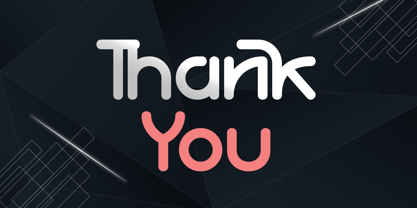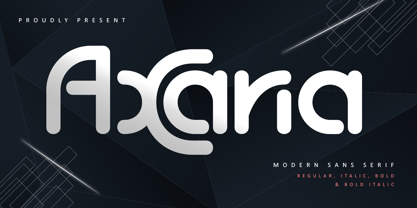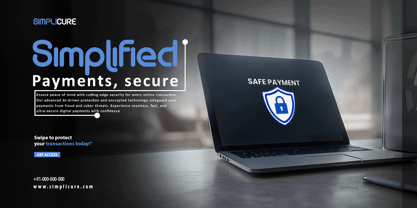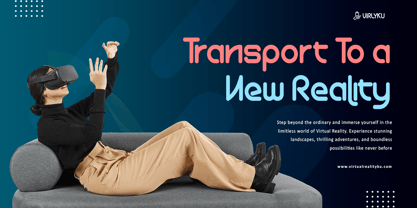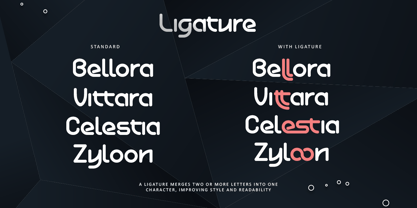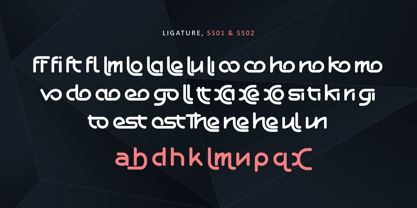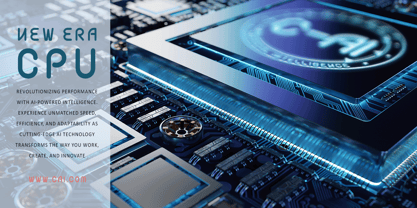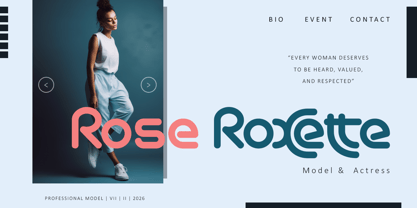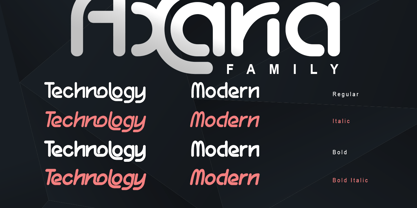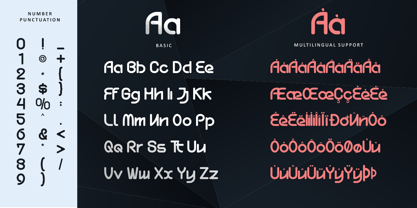
Axaria
by Letterara
The Axaria Font Family was designed by Thomas Aradea and published by Letterara. Axaria contains 4 styles and family package options.
Step into the future with Axaria, a sleek and sophisticated sans-serif font designed for modern innovation. With its clean lines and refined structure, Axaria delivers a perfect balance of elegance and strength, making it ideal for branding, editorial layouts, web design, and high-impact visuals. Whether you're crafting a striking logo or a compelling headline, Axaria’s timeless versatility ensures your message stands out with confidence. Elevate your designs with Axaria—a font that embodies contemporary sophistication and effortless style.